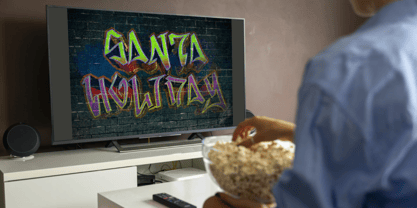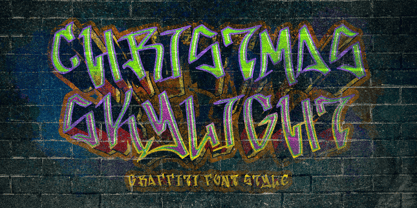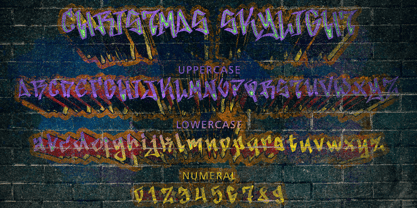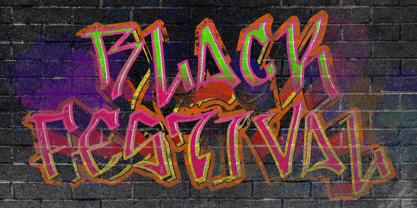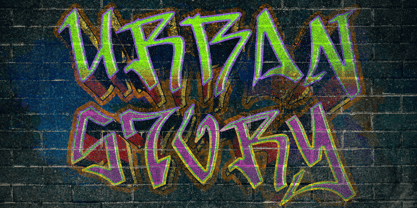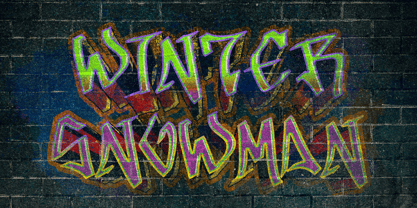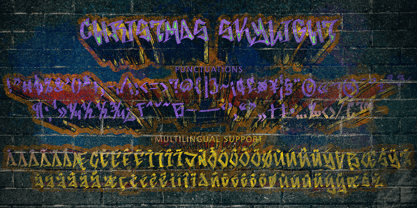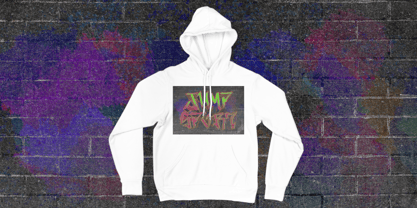
Christmas Skylight
by Yoga Letter
The Christmas Skylight Font Family was designed by Isroni Yoga Prasetya and published by Yoga Letter. Christmas Skylight contains 1 styles. More about this family
"Christmas Skylight" is a unique and elegant graffiti font. This font comes with uppercase, lowercase, numbers, punctuation, and multilingual support. Perfect for banners, branding, posters, prints, logos, stickers, Christmas, winter, tattoos, Halloween, procreate, and more.
Designers: Isroni Yoga Prasetya
Foundry: Yoga Letter